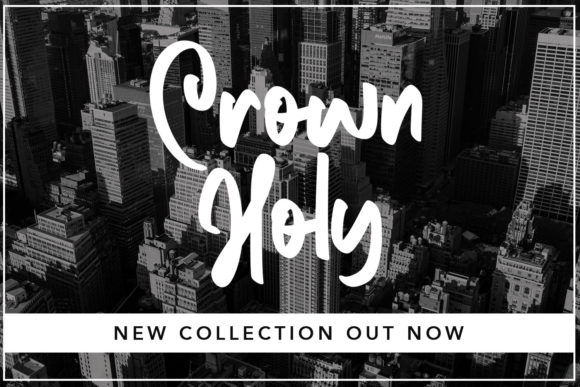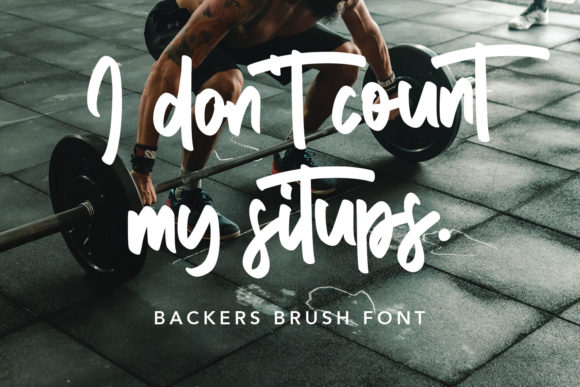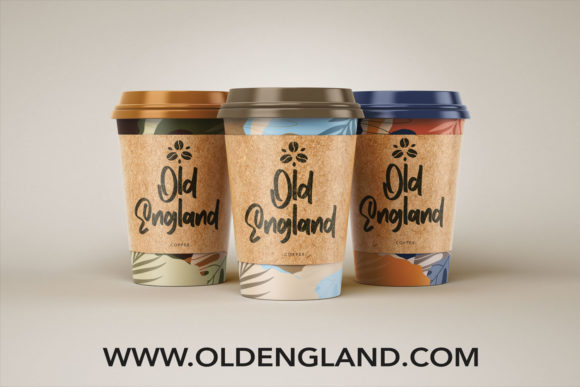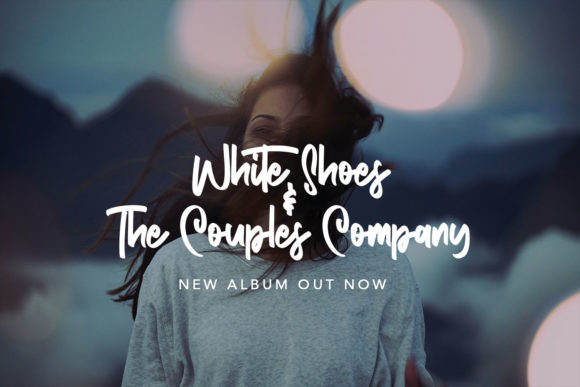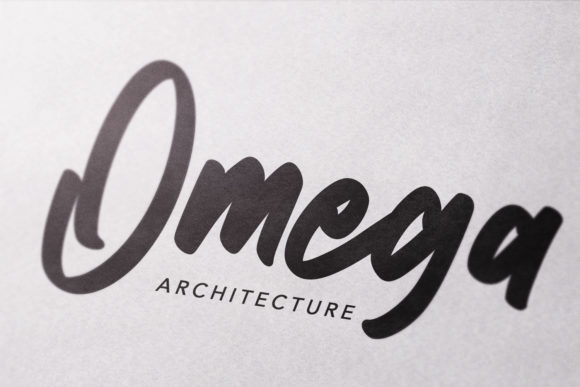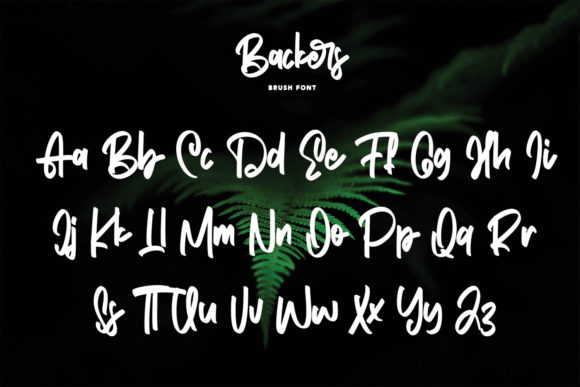
Introducing Backers Font: The Elegant Handwritten Font for Your Design Needs
Are you a designer or crafter looking for a unique and timeless font to elevate your projects? Look no further than Backers Font, a beautiful flowing handwritten font that exudes elegance and sophistication. With its distinct and classic style, Backers Font is perfect for creating spectacular designs that will leave a lasting impression.
The Characteristics of Backers Font
Backers Font is a handwritten font that boasts an elegant touch, making it ideal for a wide range of design applications. Its flowing lines and curves create a sense of movement and fluidity, adding a touch of sophistication to any project. The font’s classic style ensures that it will never go out of fashion, making it a valuable addition to any designer’s font collection.
What Makes Backers Font Stand Out
So, what sets Backers Font apart from other fonts? Here are a few key features that make it a standout:
- Unique and Distinct Style: Backers Font has an incredibly distinct and timeless style that will set your designs apart from the rest.
- Elegant Touch: The font’s elegant touch makes it perfect for creating sophisticated and high-end designs.
- Flowing Lines: The font’s flowing lines and curves create a sense of movement and fluidity, adding a touch of dynamism to any project.
- Classic Style: Backers Font’s classic style ensures that it will never go out of fashion, making it a valuable addition to any designer’s font collection.
Backers Font is versatile and can be used for a wide range of design applications, including:
- Branding and Logo Design: Create a lasting impression with a unique and elegant logo that showcases your brand’s personality.
- Stationery and Invitations: Add a touch of sophistication to your stationery and invitations with Backers Font.
- Packaging Design: Create eye-catching packaging designs that stand out on store shelves.
- Digital Design: Use Backers Font to create stunning digital designs, including social media graphics, website headers, and more.
Tips for Using Backers Font
Here are a few tips for getting the most out of Backers Font:
- Use it as a Headline Font: Backers Font is perfect for use as a headline font, adding a touch of elegance and sophistication to your designs.
- Pair it with Other Fonts: Experiment with pairing Backers Font with other fonts to create a unique and visually appealing design.
- Adjust the Size and Color: Play around with different sizes and colors to find the perfect combination for your design.
In conclusion, Backers Font is a beautiful and elegant handwritten font that is perfect for designers and crafters looking to elevate their projects. With its unique and timeless style, flowing lines, and classic touch, Backers Font is sure to become a valuable addition to your font collection. So why wait? Fall in love with Backers Font and start creating spectacular designs today!